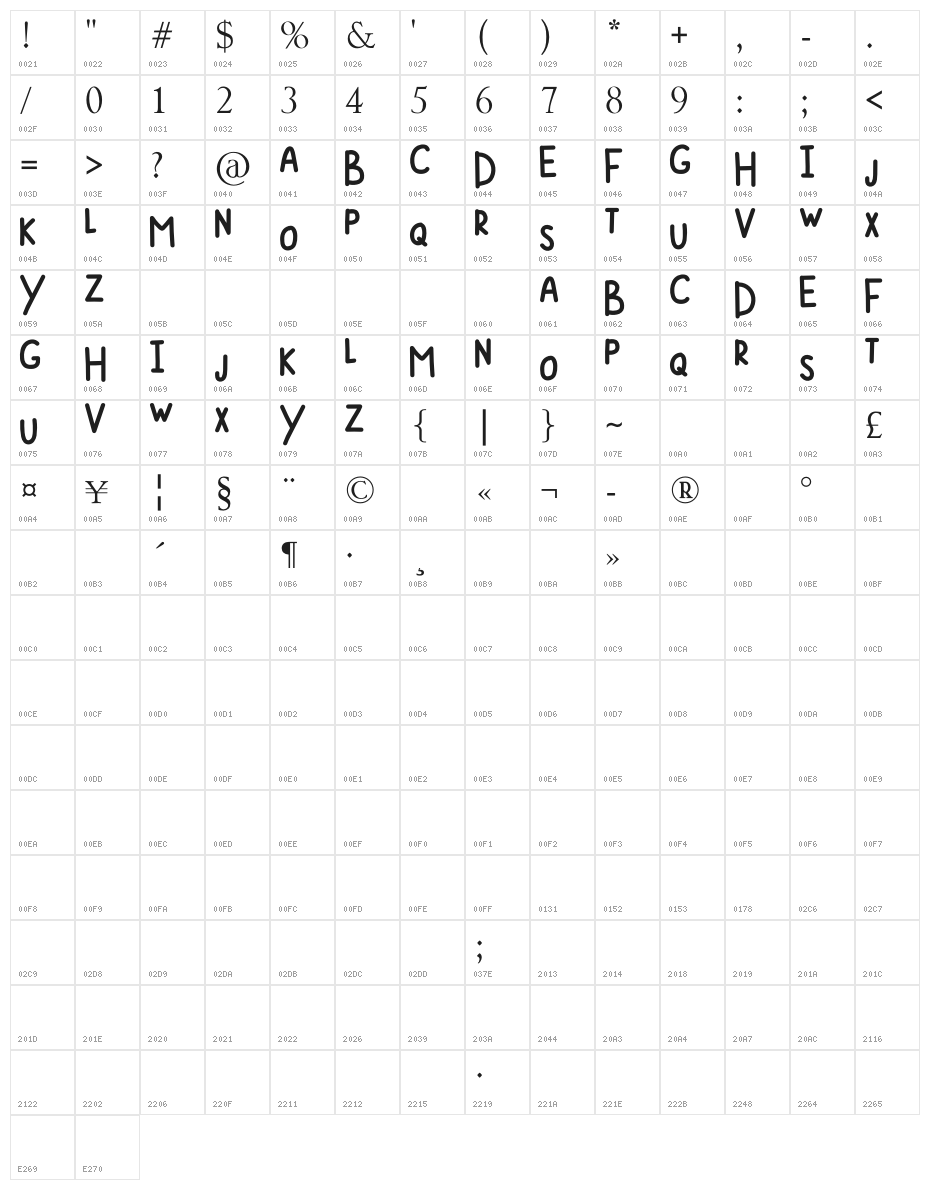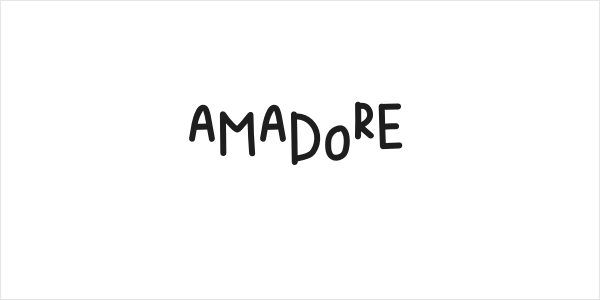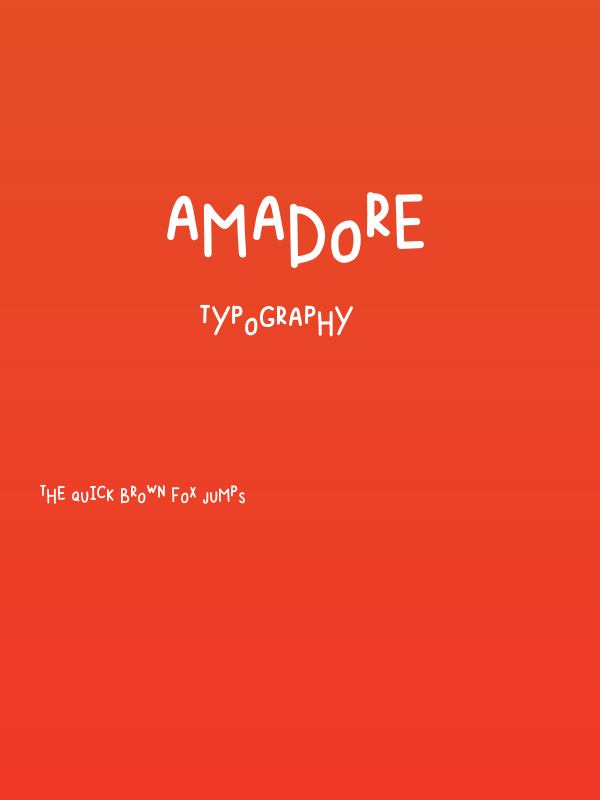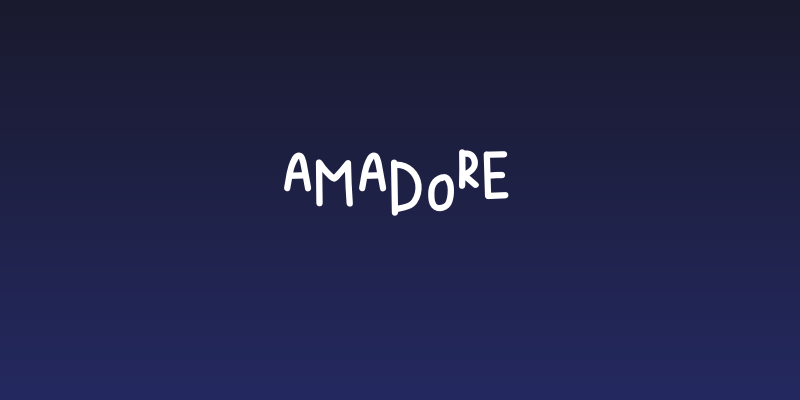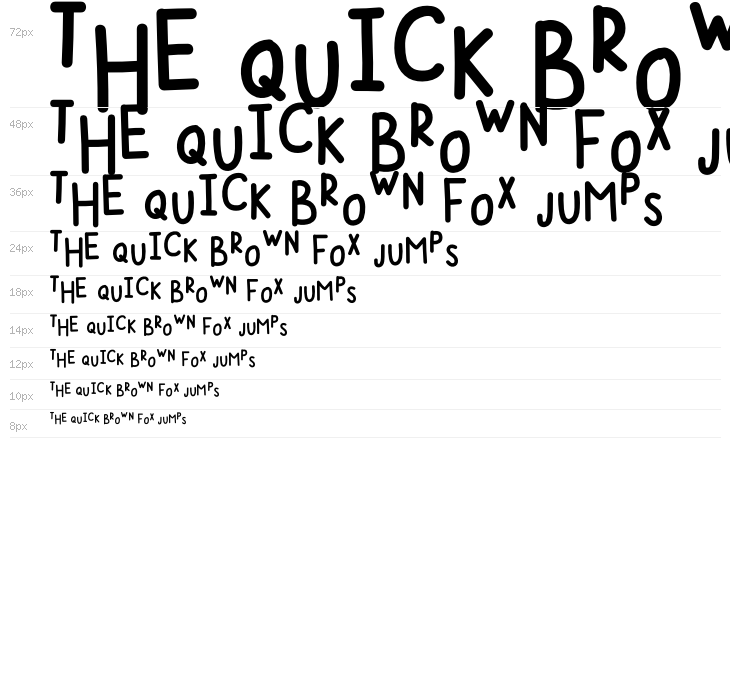
AMADORE Font
AMADORE Description
This playful and quirky font features a handwritten style with a casual, informal appearance. The letters are slightly irregular, giving it a charming and approachable feel. The uppercase and lowercase characters maintain a consistent style, with rounded edges and a friendly demeanor. The numerals and special characters complement the overall look, making it versatile for various creative projects. Its unique personality makes it stand out, perfect for adding a personal touch to designs.
| Proposed Projects | Ideal for children's books, greeting cards, playful branding, and casual invitations. |